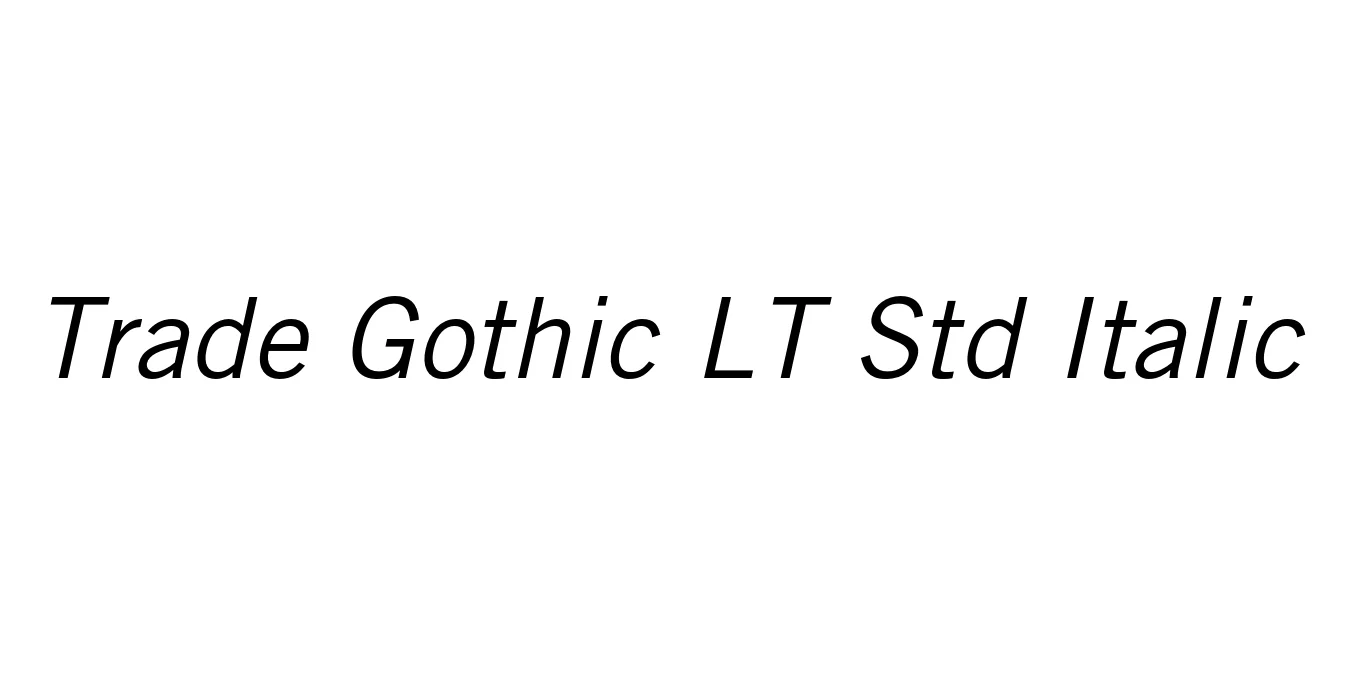
Trade Gothic LT Std Italic
Designed by Jackson Burke
Trade Gothic LT Std Italic was developed by Jackson Burke between 1948 and 1960 during his time as the director of typographic development at Linotype. Unlike many other sans-serif families that adhere to a strict, unified structure, Trade Gothic is known for its diverse and somewhat irregular character. This organic, gritty nature gives the typeface a unique personality that sets it apart from more geometric contemporaries, making it a staple in mid-century American advertising and journalism.
The Italic weight offers a sophisticated slant that retains the font's industrial and hardworking aesthetic. Because it was released in various installments over many years, the family possesses a distinctive visual rhythm that designers often use to create complex typographic hierarchies. Today, it remains a highly versatile choice, bridging the gap between retro industrialism and modern corporate branding with ease and clarity.
Trade Gothic LT Std Italic Best Uses
Perfect for high-impact titles in magazines and news media.
Excellent for professional corporate identities requiring a reliable look.
Highly effective for clear and legible copy in print and digital ads.
Provides excellent legibility for signage and environmental graphics.